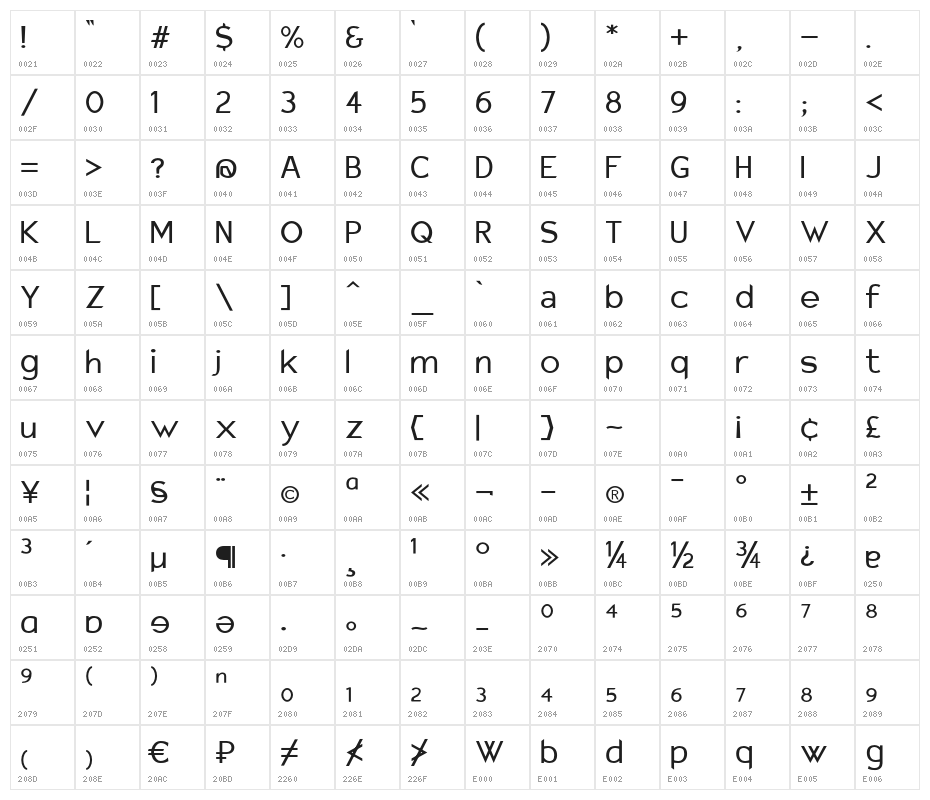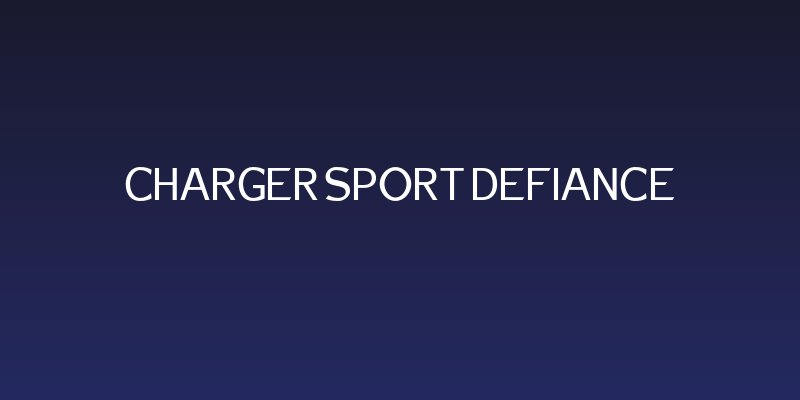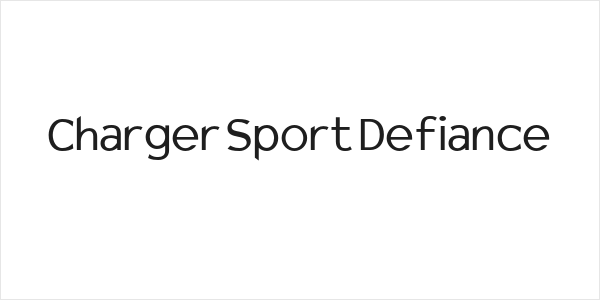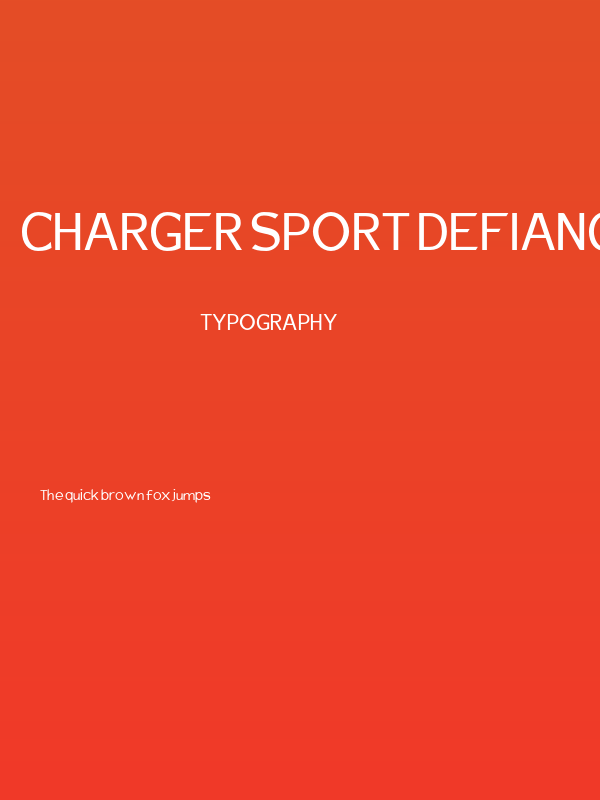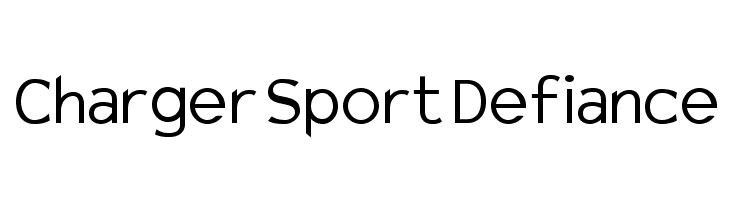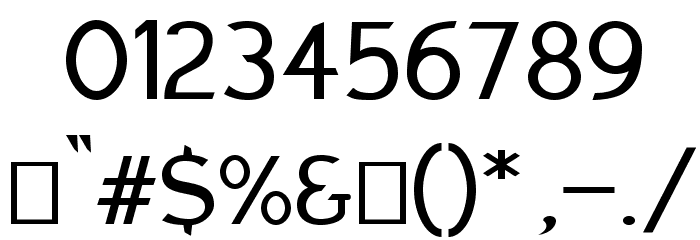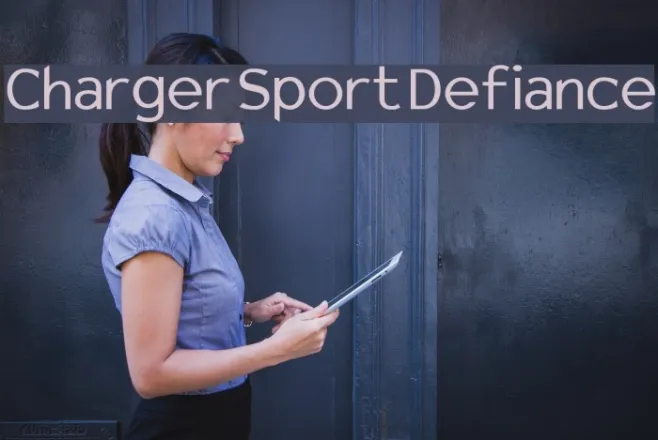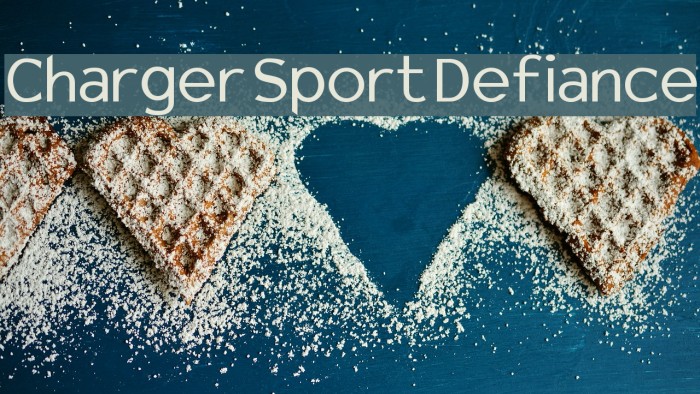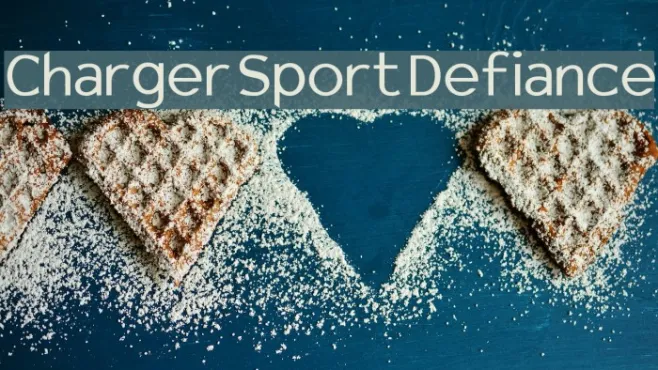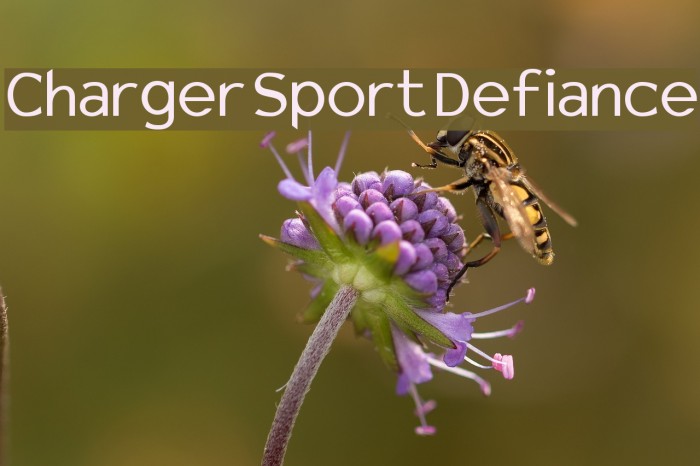
Charger Sport Defiance Font
Charger Sport Defiance Description
This font features a sleek and modern design with clean lines and a geometric structure. The uppercase letters are bold and assertive, while the lowercase letters maintain a consistent flow with rounded edges. The numerals are clear and easily distinguishable, making them suitable for various applications. The special characters are well-integrated, complementing the overall aesthetic. This font balances professionalism with a touch of contemporary style, making it versatile for different design needs.
| Proposed Projects | Ideal for branding, advertising, digital interfaces, and editorial design. |